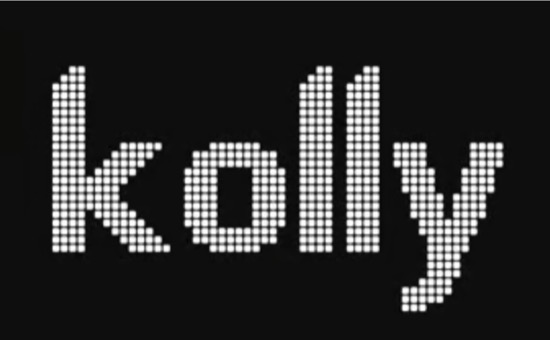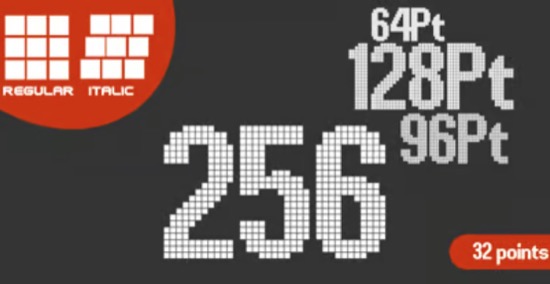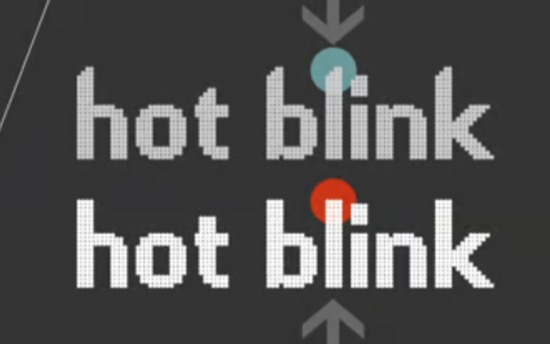
Kolly is a new fresh pixel font family was designed by Michel Troy and published by UrbanPixel. Kolly contains 10 styles and family package options. The best of both worlds: good for small screen resolutions and nice output at larger sizes.
Kolly Display Pixel Font Family